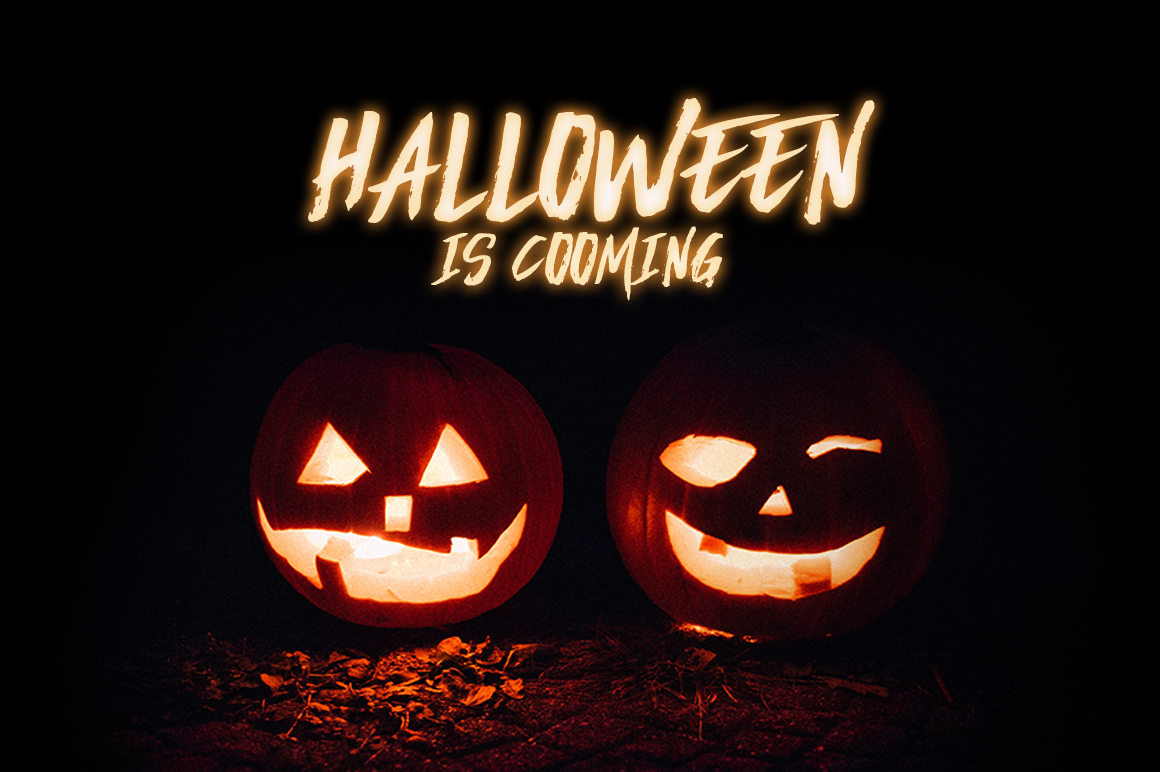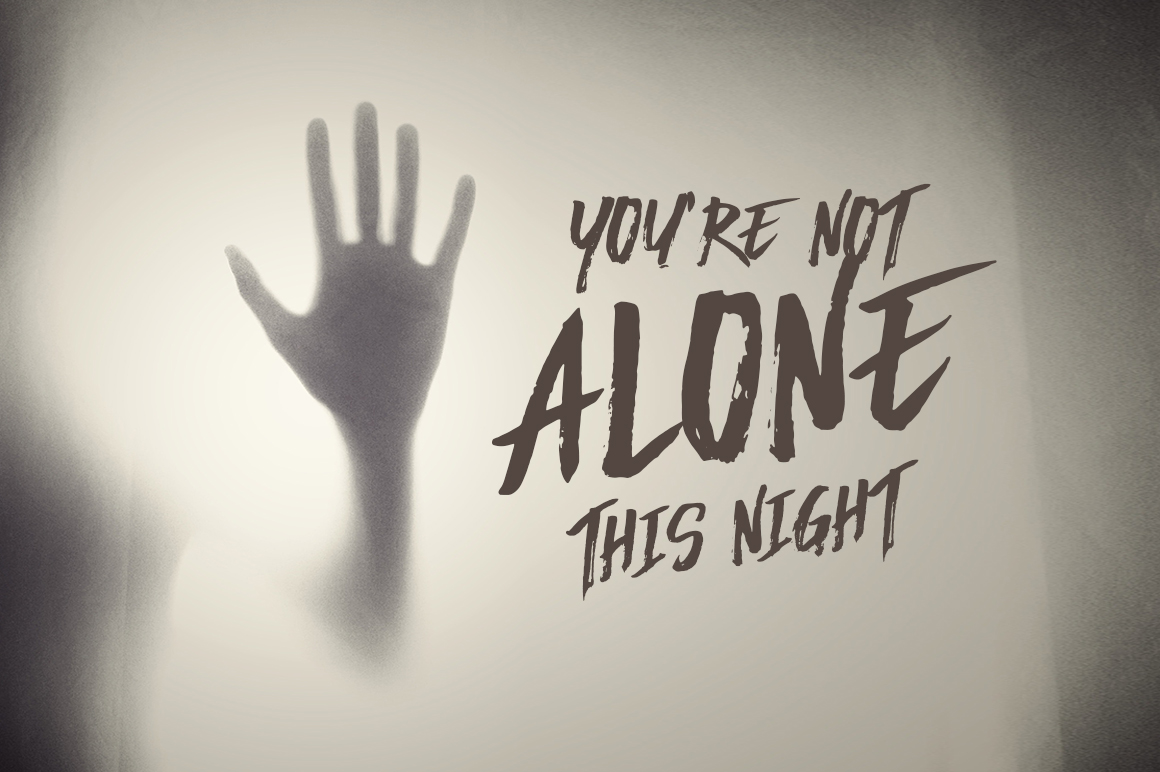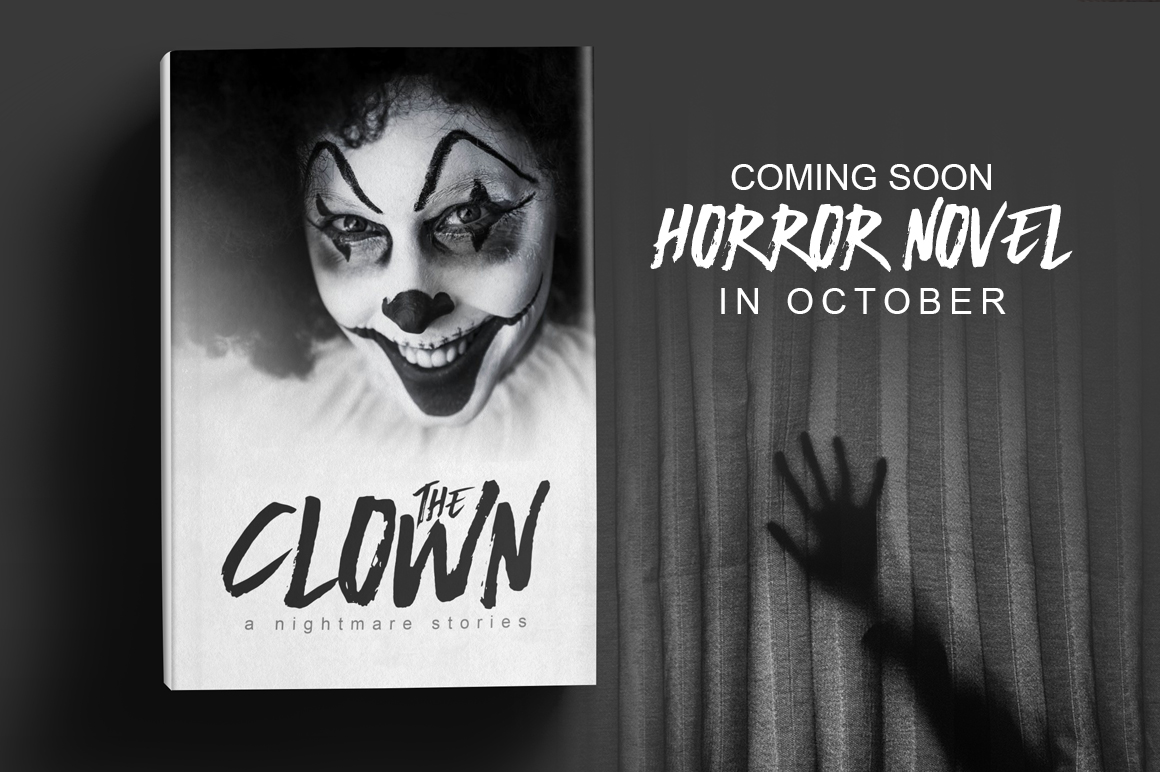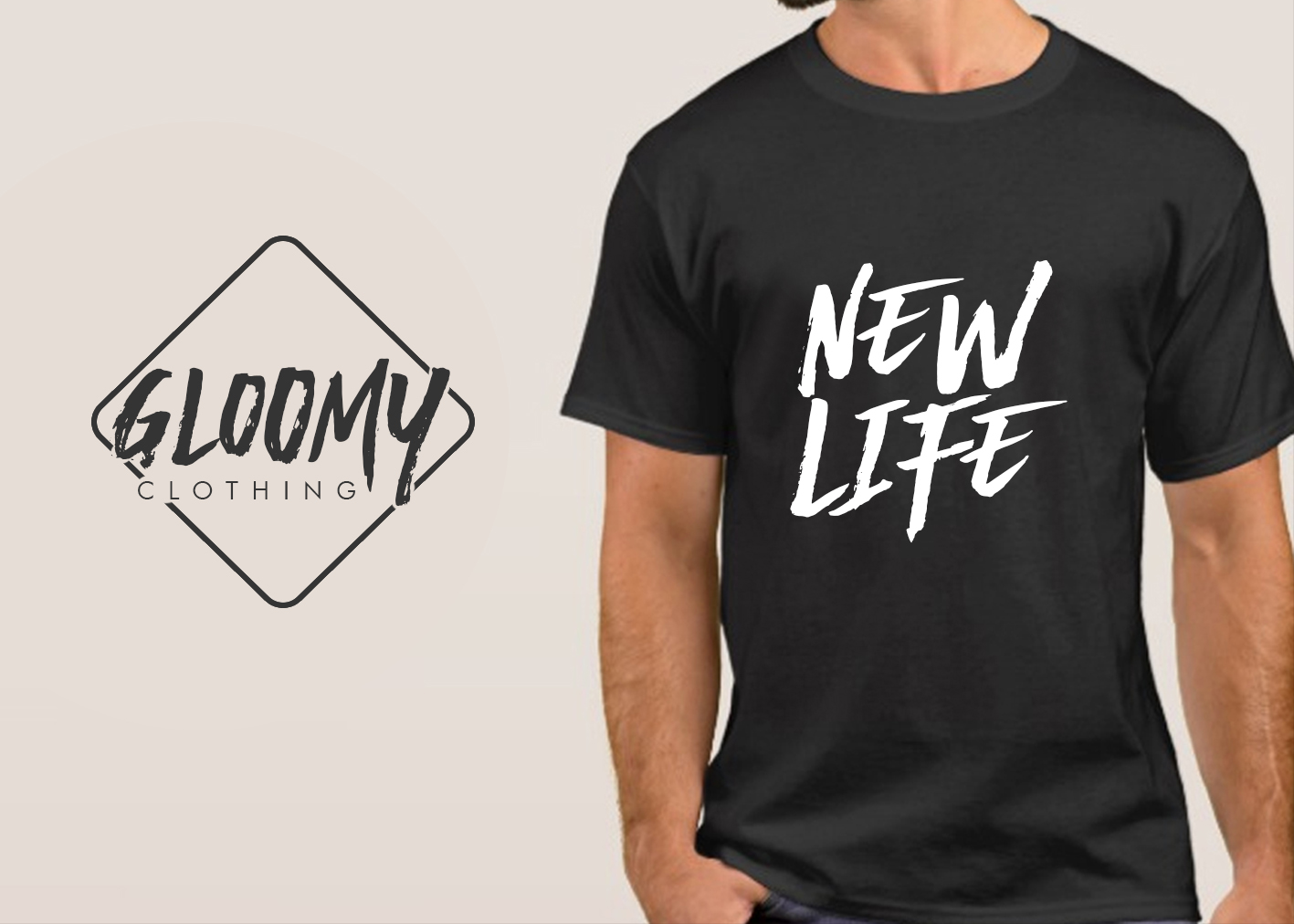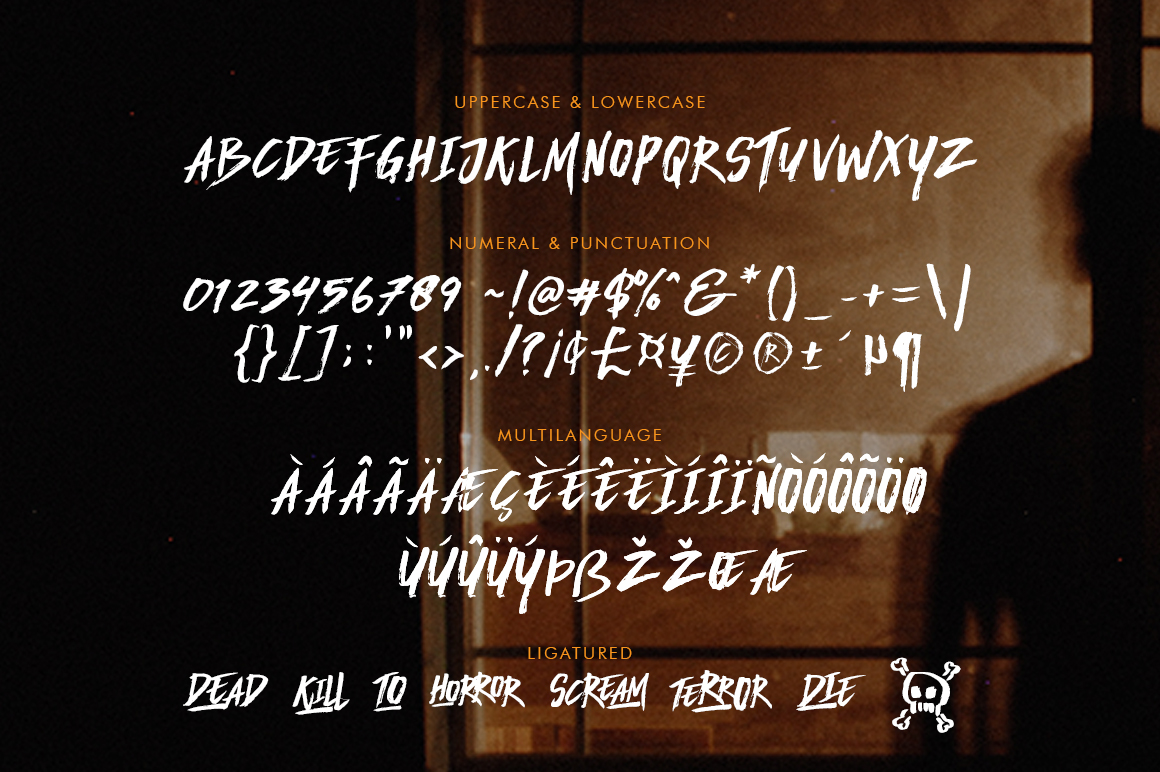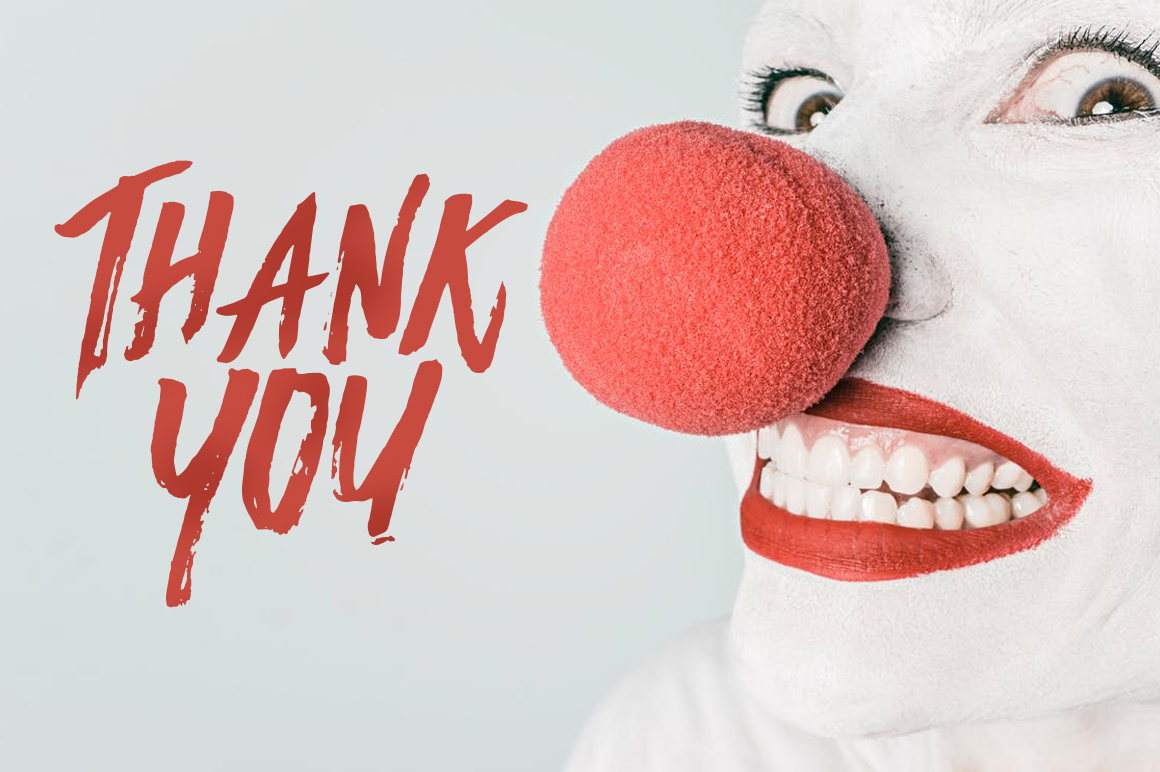
Gloomy Line Font: Add an Edgy Touch to Your Designs
In the world of typography, fonts play a crucial role in conveying the tone and personality of a brand or design. If you’re looking for a font that can add an edgy touch to your projects, look no further than Gloomy Line Font. This quirky display font is created with a marker pen, giving it a rough and unique approach that’s sure to make your designs stand out from the crowd.
What is Gloomy Line Font?
Gloomy Line Font is a display font that’s perfect for designers and crafters who want to add a touch of personality to their work. The font is created with a marker pen, which gives it a distinctive, hand-drawn look. The rough and quirky style of Gloomy Line Font makes it ideal for designs that require an edgy and bold approach.
Characteristics of Gloomy Line Font
Gloomy Line Font has several characteristics that make it a unique and versatile font. Some of its key features include:
- Marker pen style: The font is created with a marker pen, which gives it a distinctive, hand-drawn look.
- Rough and quirky style: Gloomy Line Font has a rough and quirky style that’s perfect for designs that require an edgy approach.
- Display font: Gloomy Line Font is a display font, making it perfect for headlines, titles, and other display text.
- Edgy and bold: The font has an edgy and bold approach that’s sure to make your designs stand out from the crowd.
Uses of Gloomy Line Font
Gloomy Line Font is a versatile font that can be used in a variety of design projects. Some of the most popular uses of the font include:
- Headlines and titles: Gloomy Line Font is perfect for headlines and titles that require an edgy and bold approach.
- Posters and flyers: The font is ideal for posters and flyers that require a quirky and attention-grabbing approach.
- Branding and logos: Gloomy Line Font can be used to create unique and memorable brand identities.
- Social media graphics: The font is perfect for social media graphics that require a bold and edgy approach.
Tips for Using Gloomy Line Font
Here are some tips for using Gloomy Line Font in your designs:
- Use it sparingly: Gloomy Line Font is a bold and edgy font, so it’s best to use it sparingly to avoid overwhelming your design.
- Pair it with a neutral font: Pair Gloomy Line Font with a neutral font to create contrast and balance in your design.
- Experiment with colors: The font looks great in bold and bright colors, so don’t be afraid to experiment with different color schemes.
- Use it for emphasis: Gloomy Line Font is perfect for emphasizing certain words or phrases in your design.
Gloomy Line Font is a unique and versatile font that’s perfect for designers and crafters who want to add an edgy touch to their work. With its rough and quirky style, the font is sure to make your designs stand out from the crowd. Whether you’re creating headlines, titles, posters, or social media graphics, Gloomy Line Font is a great choice. So why not give it a try and see how it can elevate your designs?